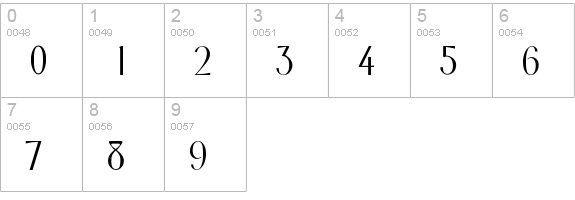
Florentine Font Details
Florentine font is a timeless and elegant typeface that exudes sophistication and charm. With its delicate serifs and graceful curves, this font is perfect for adding a touch of class to any design project. Whether you're working on invitations, branding, or editorial layouts, Florentine font will elevate your work to the next level. What makes Florentine font even more appealing is that it is completely free to download. You can easily access this beautiful typeface at FontsMarket.com, where you can explore its full potential and use it in your creative endeavors without any cost. Embrace the beauty and versatility of Florentine font in your designs and let its classic style shine through.